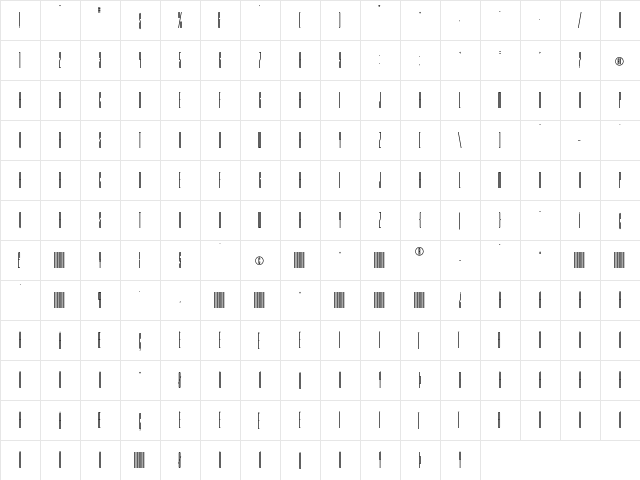
Barcode Three Font Preview
Barcode Three
Barcode Three Font Details
Design Context for Barcode Typeface
Barcode brings the precise, column-aligned rhythm of monospaced typography to designs that value technical clarity and systematic order.
A natural fit for code editors, technical documentation, developer-focused branding, and terminal-inspired UI.
Pro Tip: Pair Barcode with a proportional sans for UI contexts where code-style labels and regular body copy need to coexist.